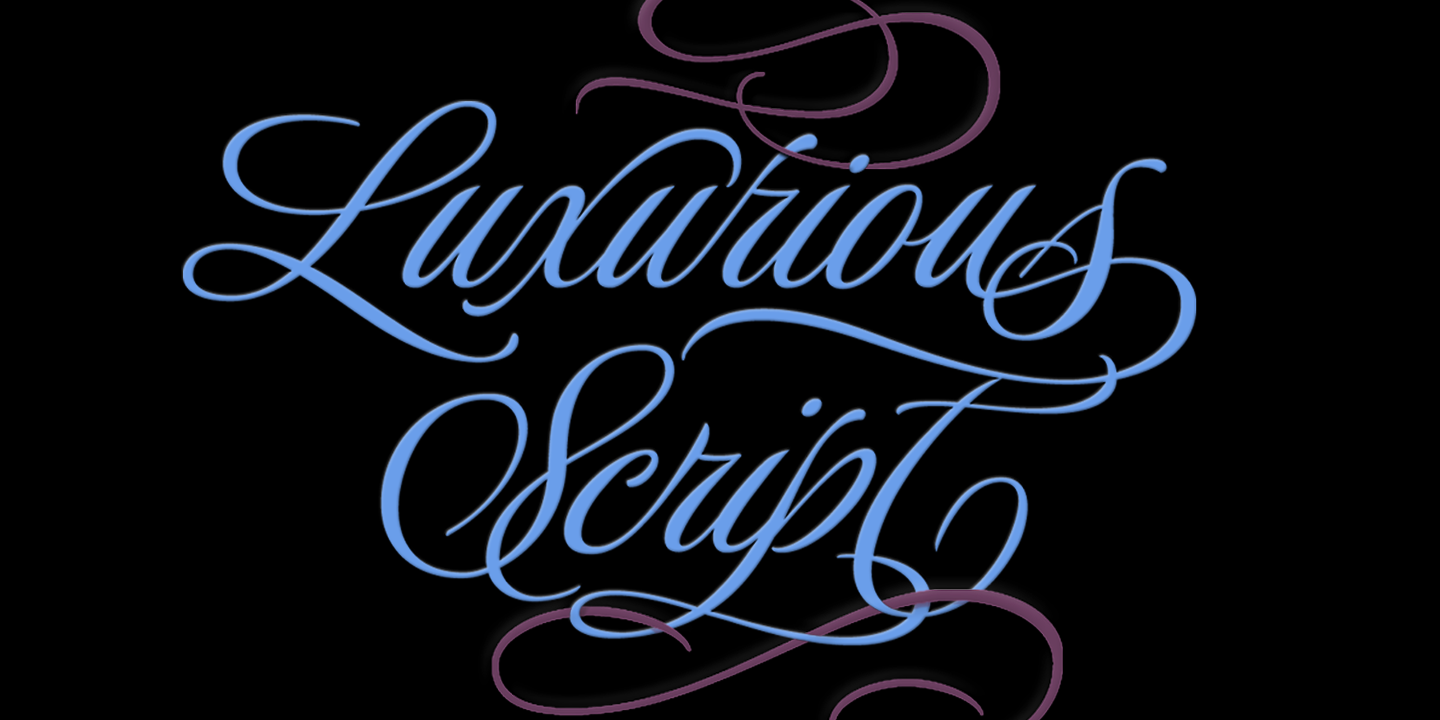
Luxurious Font is perfect for high-end fashion house branding, exclusive luxury hotel signage, premium jewelry advertising, upscale spa resort materials, elite private banking, luxury yacht club identities, prestigious award ceremonies, and opulent design projects that require extravagant typography with supreme luxury character and magnificent sophistication.
This Luxurious Font is exciting because it embodies pure opulence and extravagant elegance with lavishly crafted letterforms that radiate wealth and exclusivity, featuring sumptuous character construction that conveys the finest luxury while maintaining exceptional readability for premium applications requiring the ultimate in sophisticated presentation and affluent communications.
The Luxurious Font family includes opulent weights with extravagant styling, complete character sets with magnificent uppercase and lowercase letters, premium numerals, elegant punctuation, and luxury symbols that provide comprehensive typography solutions for high-end luxury and premium design projects requiring authentic opulent aesthetics and exclusive appeal.
Perfect for creating magnificent luxury communications and extravagant premium brand identities, Luxurious Font Free Download delivers the opulent typography that transforms text into sumptuous expressions of supreme luxury and magnificent elegance. This distinctive typeface represents the pinnacle of typographic luxury and refined extravagance, making it essential for projects celebrating ultimate luxury, premium excellence, opulent lifestyle, and any design requiring magnificent character with authentic luxury sophistication and timeless opulent appeal that defines the very essence of luxurious living.